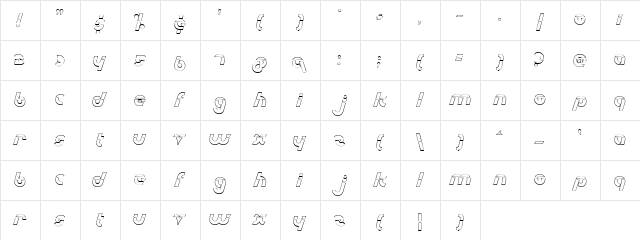
Metroplex Outline Laser Outline Laser
Design Context for Metroplex Outline Laser Typeface
Metroplex Outline Laser is built around its visual character rather than neutral utility — its distinctive forms are designed to make an impression at display sizes.
Font Pairing: Pair with a clean neutral sans-serif for body copy to let Metroplex Outline Laser's character lead without overwhelming the composition.
Pro Tip: Treat Metroplex Outline Laser as the centrepiece of your typographic hierarchy. One strong heading set in a decorative face can carry an entire layout.